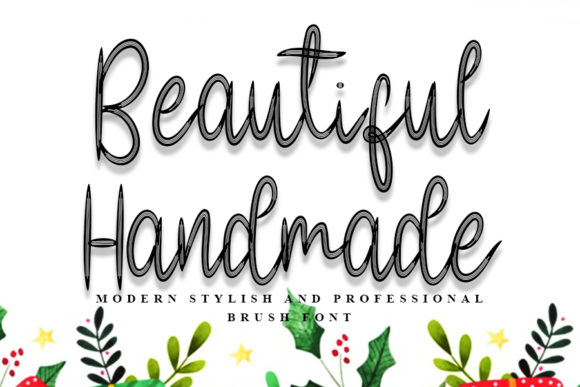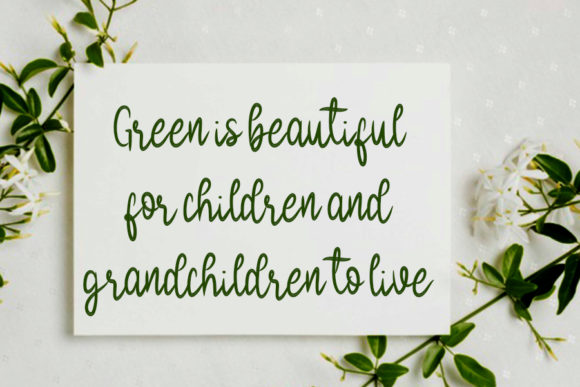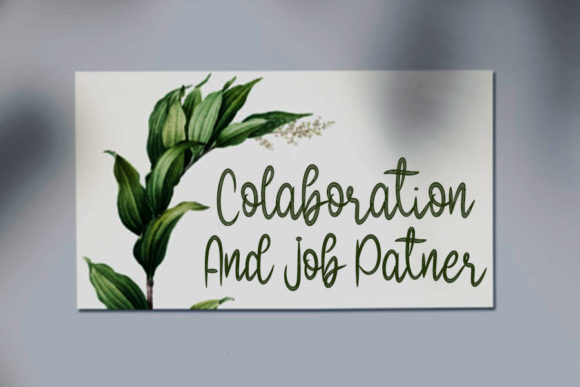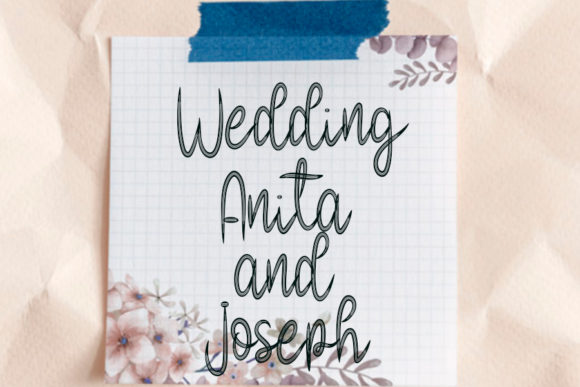
Beautiful Handmade Font
About Beautiful Handmade Font
Beautiful Handmade is a unique handwritten font. Use it to make your ideas even more realistic and create spectacular designs!